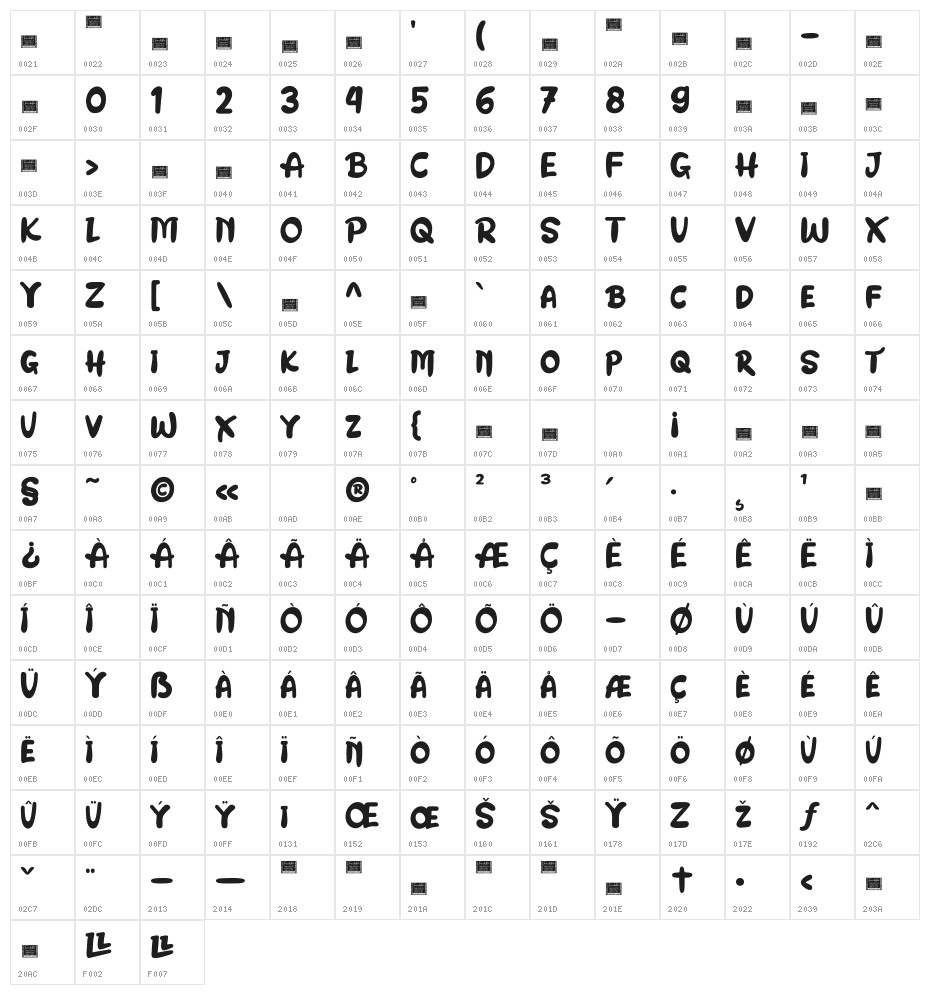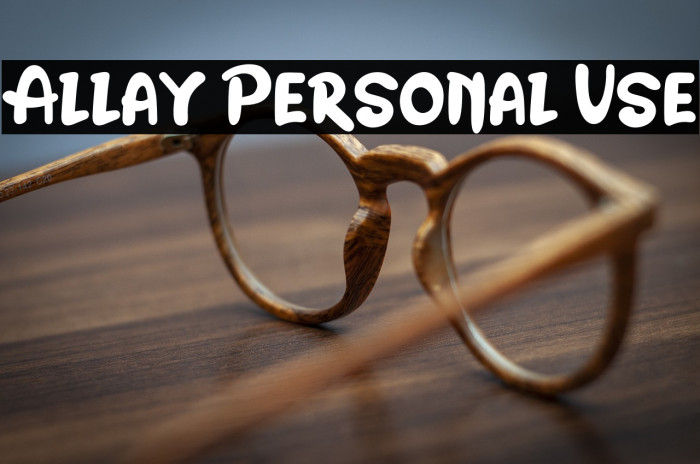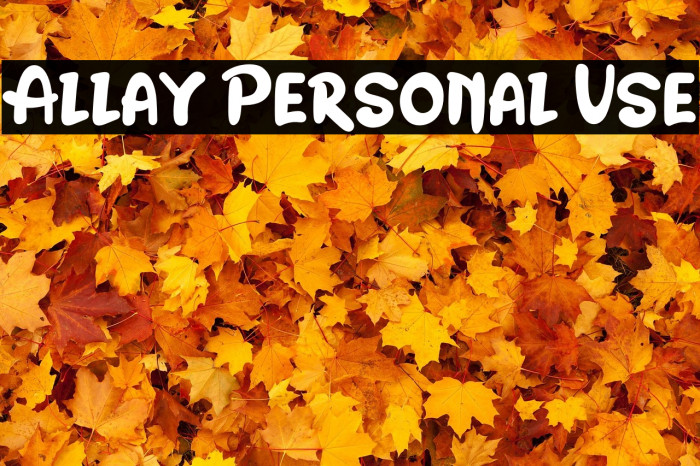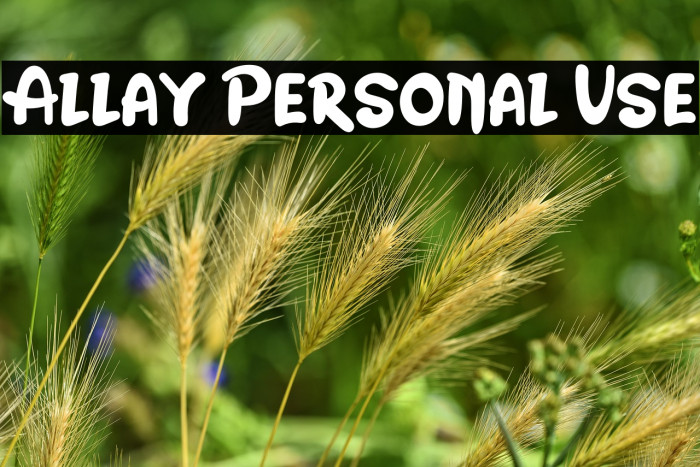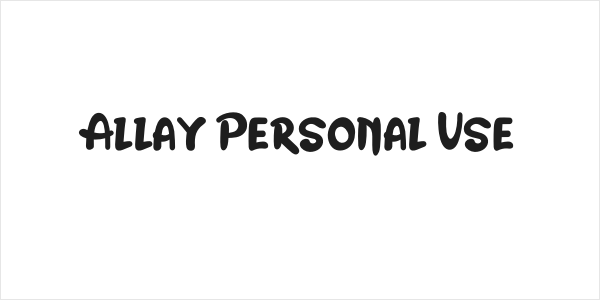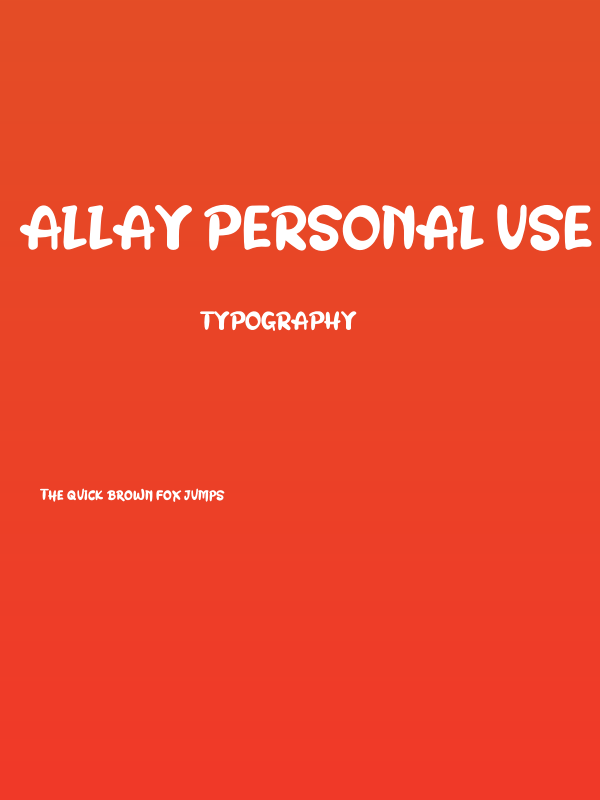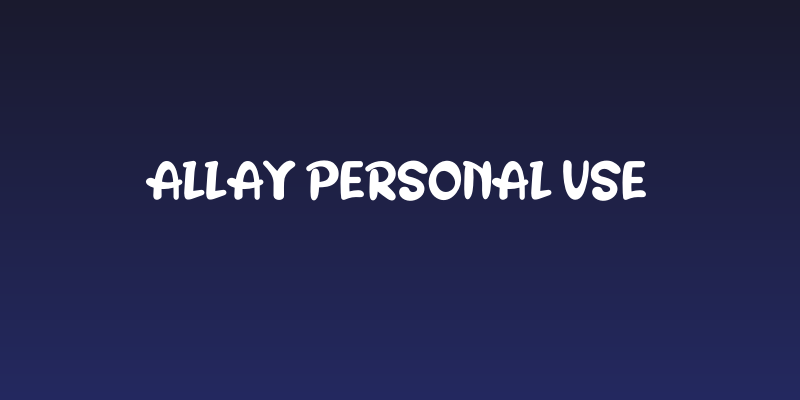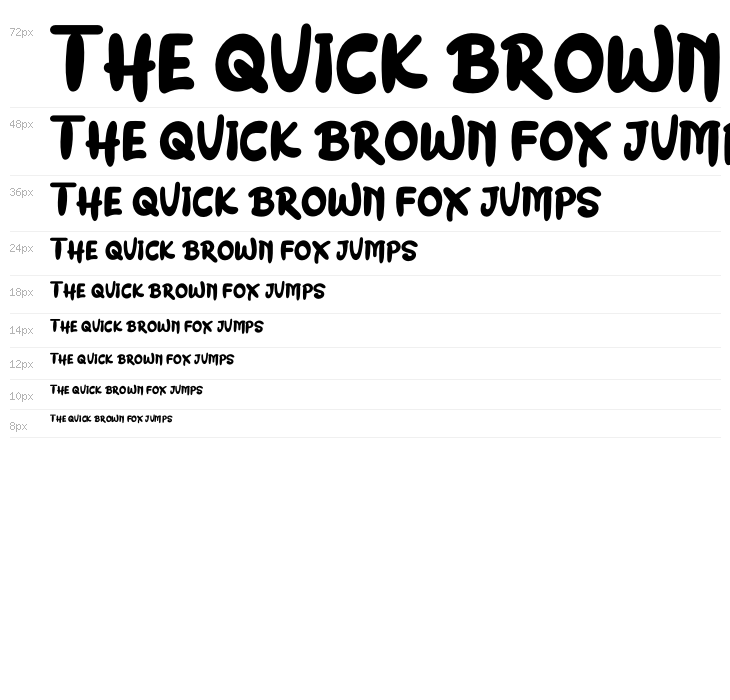
Allay Personal Use Font
Allay Personal Use Description
This font features a bold and playful style with rounded edges and a slightly irregular form, giving it a hand-drawn appearance. The uppercase and lowercase letters maintain a consistent weight, contributing to a cohesive look. The numerals and special characters follow the same design principles, ensuring uniformity across all characters. The font's thick strokes and rounded shapes make it highly legible, even at smaller sizes. Its whimsical and friendly aesthetic is suitable for projects that aim to convey a sense of fun and approachability.
| Proposed Projects | Ideal for children's books, playful branding, casual invitations, and creative posters. |